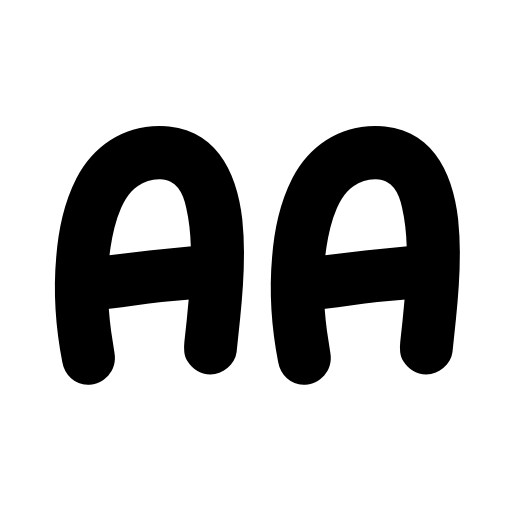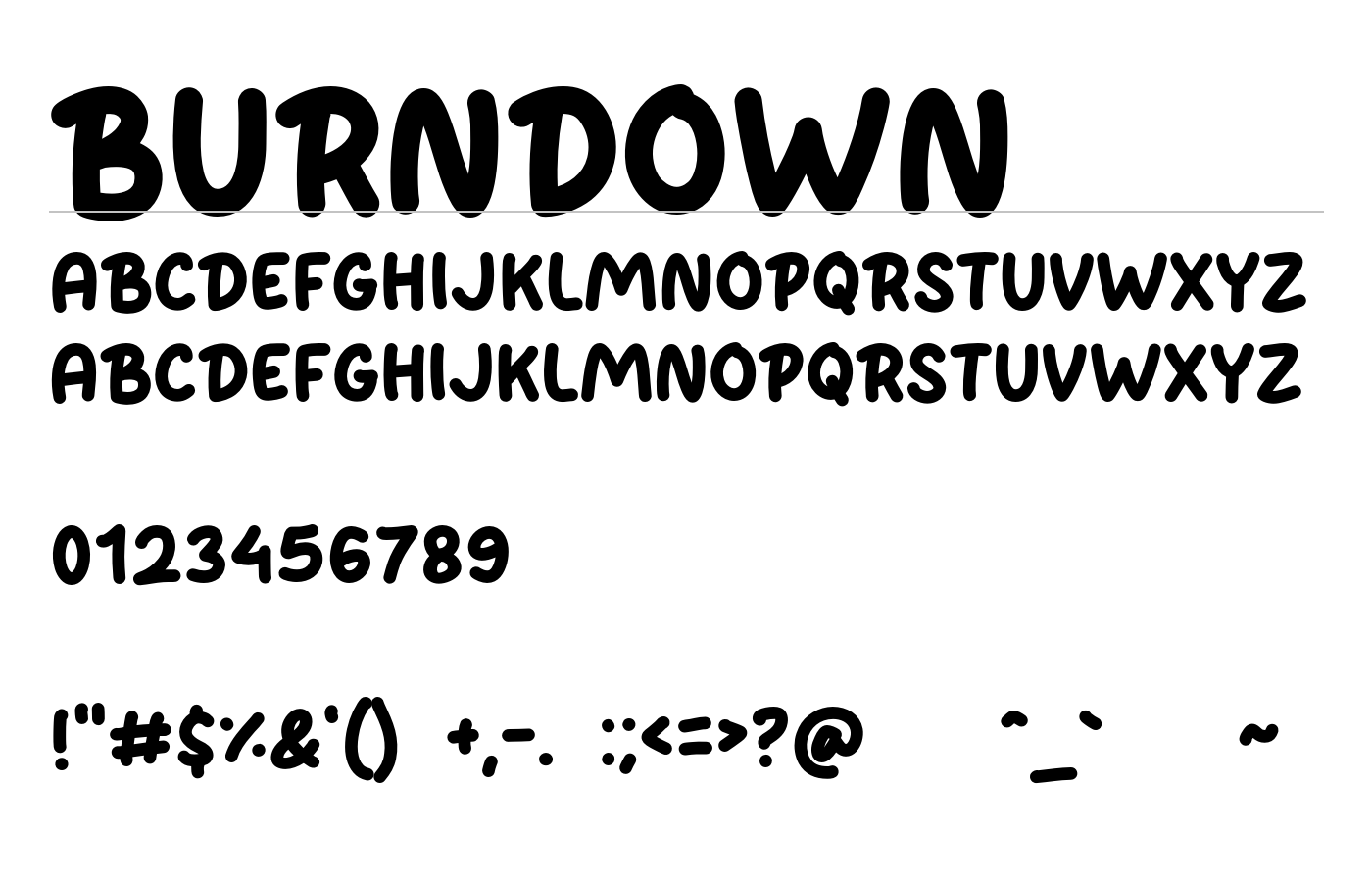
Burndown is a bold, casual sans serif font with a friendly, rounded style that feels approachable and playful. Its thick strokes and soft curves give it a handwritten, informal look, making it ideal for creative and fun designs like logos, packaging, or children’s materials. This font works well in headlines and display settings where a warm, inviting impression is desired.
Burndown Font
About Burndown Font